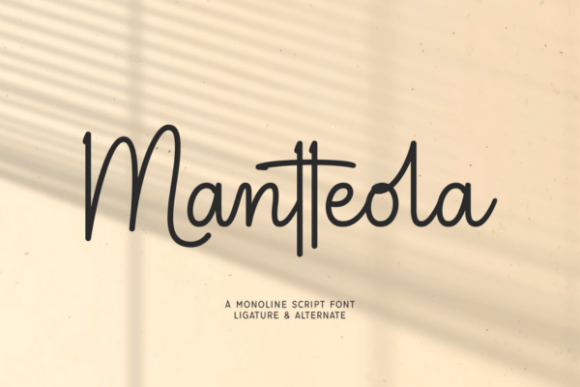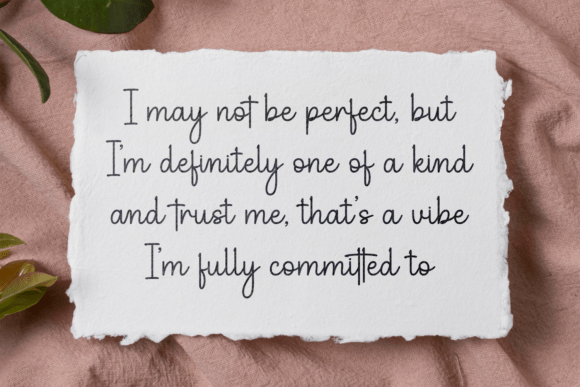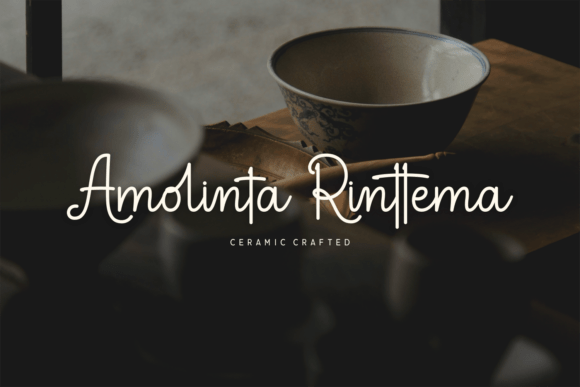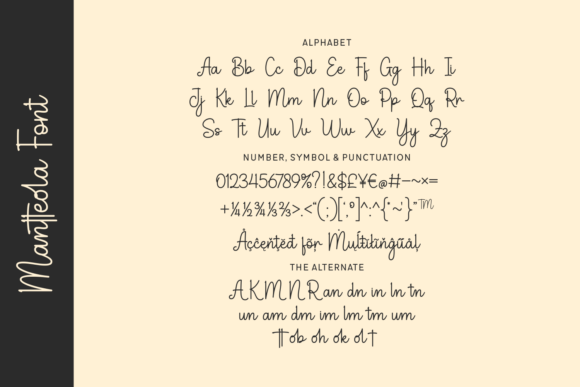
Mantteola Font: Elegant Script for Wedding Invitations & Modern Branding
About the Mantteola Font
Add a touch of class to your work with the Mantteola Font, a truly exceptional typeface. Mantteola is a refined monoline script font featuring smooth curves, elegant ligatures, and alternate characters that add versatility and charm. Its clean, modern aesthetic makes it a great choice for branding, logos, editorial titles, and minimalist designs. Whether you’re working on a fashion label or a chic wedding invitation, Mantteola brings a balanced blend of sophistication and simplicity to your creative work.
Mantteola excels in applications requiring understated elegance, such as logotypes, short headlines, and invitations. Its clean lines also make it suitable for packaging design where a touch of sophistication is desired. However, its script nature and limited x-height make it less effective for body text or UI elements requiring high readability.
Pairing Mantteola with a geometric sans-serif like Poppins or a neutral serif like Lora creates a balanced and contemporary feel. For a more playful contrast, consider pairing it with a rounded sans-serif such as Circular Std. The key is to select a typeface that complements its refined, yet modern character without overwhelming it.
The overall personality of Mantteola is sophisticated and subtly modern; its clean lines suggest a sense of calm elegance, making it ideal for brands projecting luxury, minimalism, or a sense of refined style.
Mantteola Font Usage Examples
Mantteola Font Example